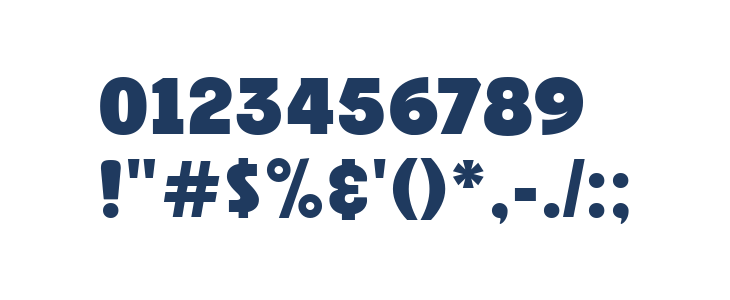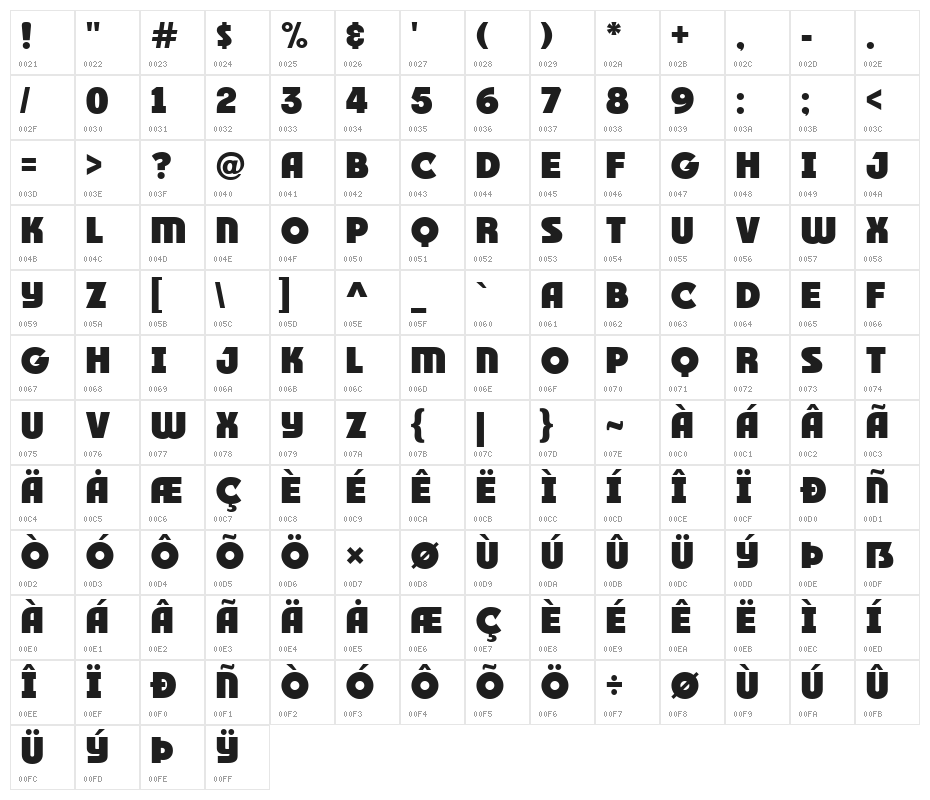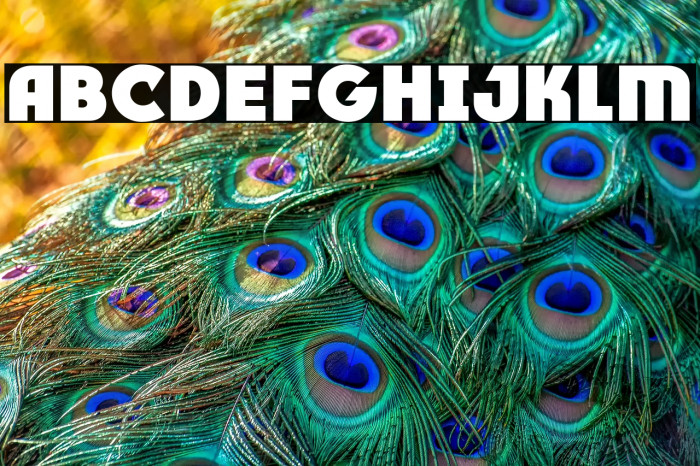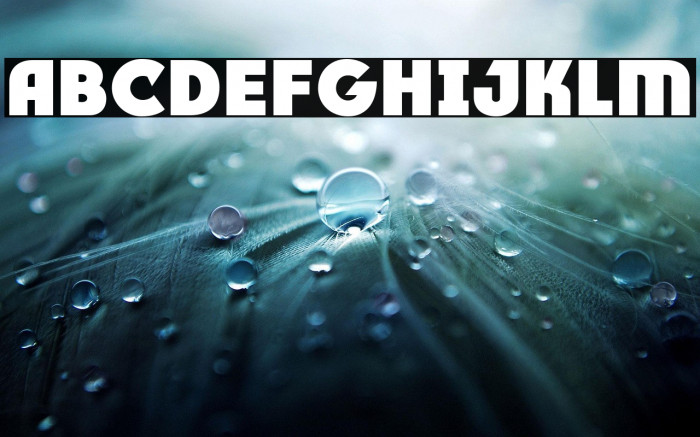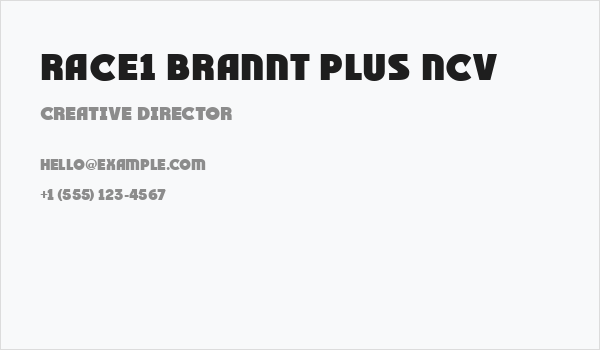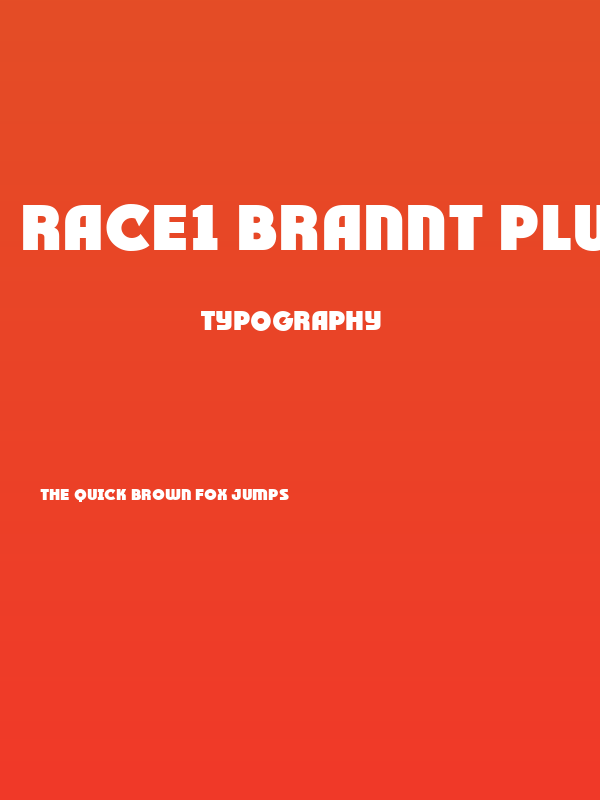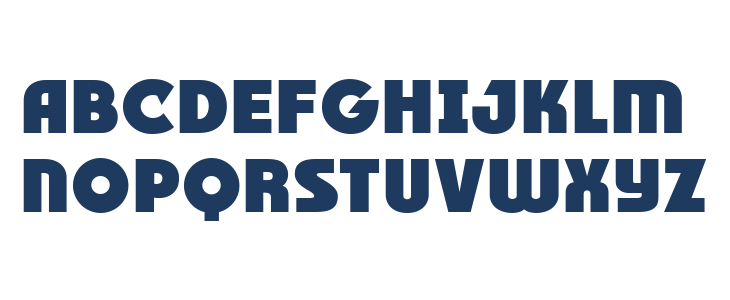
RACE1 Brannt Plus NCV Font
RACE1 Brannt Plus NCV Description
This font features bold, geometric letterforms with a strong presence. The characters are uniformly thick, giving them a solid and impactful appearance. The uppercase letters are particularly striking, with a modern and slightly futuristic aesthetic. The lowercase letters maintain the same weight and style, ensuring consistency across text. Numbers are equally bold, making them stand out clearly. Special characters are designed to match the overall boldness and geometric style, ensuring they integrate seamlessly with the rest of the font. This font's design is ideal for making a statement, with its robust and confident look.
| Proposed Projects | Ideal for headlines, posters, branding, and any project requiring a strong visual impact. |